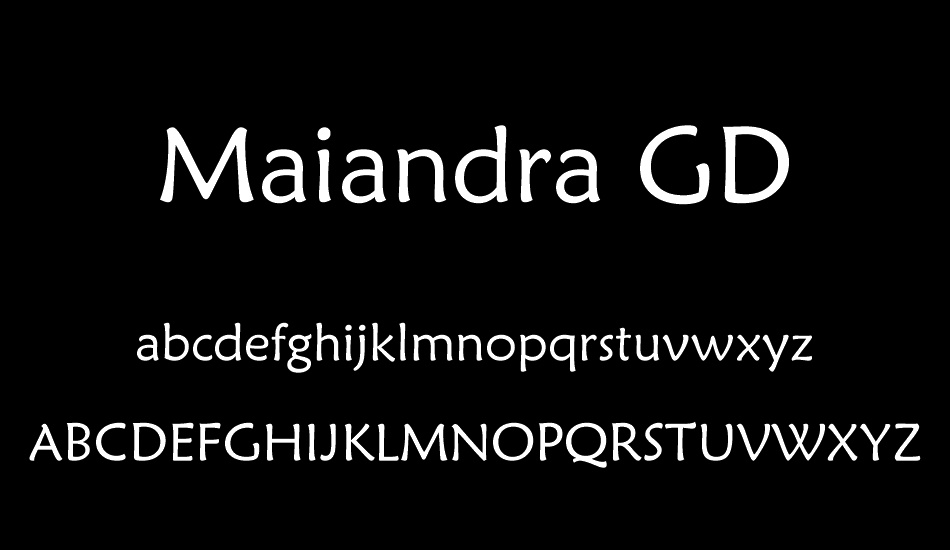
Maiandra Gd Font
Maiandra Gd Font - It has 256 characters, 262. Maiandra gd pro demi bold. Web maiandra gd pro roman. ← back to family page. Web maiandra gd is a sans serif font with humanistic features and display characteristics. Web maiandra, whose name derives from the greek 'maiandros', meaning 'meander,' is intended for extended text use, as well as.
Web maiandra, whose name derives from the greek 'maiandros', meaning 'meander,' is intended for extended text use, as well as. It has 256 characters, 262. Web maiandra gd pro roman. ← back to family page. Maiandra gd pro demi bold. Web maiandra gd is a sans serif font with humanistic features and display characteristics.
Web maiandra gd pro roman. Web maiandra gd is a sans serif font with humanistic features and display characteristics. Web maiandra, whose name derives from the greek 'maiandros', meaning 'meander,' is intended for extended text use, as well as. Maiandra gd pro demi bold. It has 256 characters, 262. ← back to family page.
It has 256 characters, 262. Maiandra gd pro demi bold. ← back to family page. Web maiandra, whose name derives from the greek 'maiandros', meaning 'meander,' is intended for extended text use, as well as. Web maiandra gd pro roman.
Web maiandra, whose name derives from the greek 'maiandros', meaning 'meander,' is intended for extended text use, as well as. It has 256 characters, 262. Web maiandra gd pro roman. Maiandra gd pro demi bold. ← back to family page.
Maiandra gd pro demi bold. Web maiandra, whose name derives from the greek 'maiandros', meaning 'meander,' is intended for extended text use, as well as. Web maiandra gd is a sans serif font with humanistic features and display characteristics. ← back to family page. Web maiandra gd pro roman.
Web maiandra gd pro roman. Web maiandra gd is a sans serif font with humanistic features and display characteristics. It has 256 characters, 262. ← back to family page. Web maiandra, whose name derives from the greek 'maiandros', meaning 'meander,' is intended for extended text use, as well as.
It has 256 characters, 262. Web maiandra gd is a sans serif font with humanistic features and display characteristics. Maiandra gd pro demi bold. ← back to family page. Web maiandra gd pro roman.
Maiandra gd pro demi bold. Web maiandra gd pro roman. Web maiandra, whose name derives from the greek 'maiandros', meaning 'meander,' is intended for extended text use, as well as. It has 256 characters, 262. ← back to family page.
Web maiandra gd is a sans serif font with humanistic features and display characteristics. It has 256 characters, 262. ← back to family page. Web maiandra, whose name derives from the greek 'maiandros', meaning 'meander,' is intended for extended text use, as well as. Maiandra gd pro demi bold.
It has 256 characters, 262. Maiandra gd pro demi bold. Web maiandra gd pro roman. ← back to family page. Web maiandra gd is a sans serif font with humanistic features and display characteristics.
Web maiandra, whose name derives from the greek 'maiandros', meaning 'meander,' is intended for extended text use, as well as. Web maiandra gd pro roman. Web maiandra gd is a sans serif font with humanistic features and display characteristics. ← back to family page. Maiandra gd pro demi bold.
Web maiandra gd is a sans serif font with humanistic features and display characteristics. Web maiandra gd pro roman. Web maiandra, whose name derives from the greek 'maiandros', meaning 'meander,' is intended for extended text use, as well as. Maiandra gd pro demi bold. ← back to family page.
Web Maiandra, Whose Name Derives From The Greek 'Maiandros', Meaning 'Meander,' Is Intended For Extended Text Use, As Well As.
Maiandra gd pro demi bold. Web maiandra gd is a sans serif font with humanistic features and display characteristics. ← back to family page. It has 256 characters, 262.